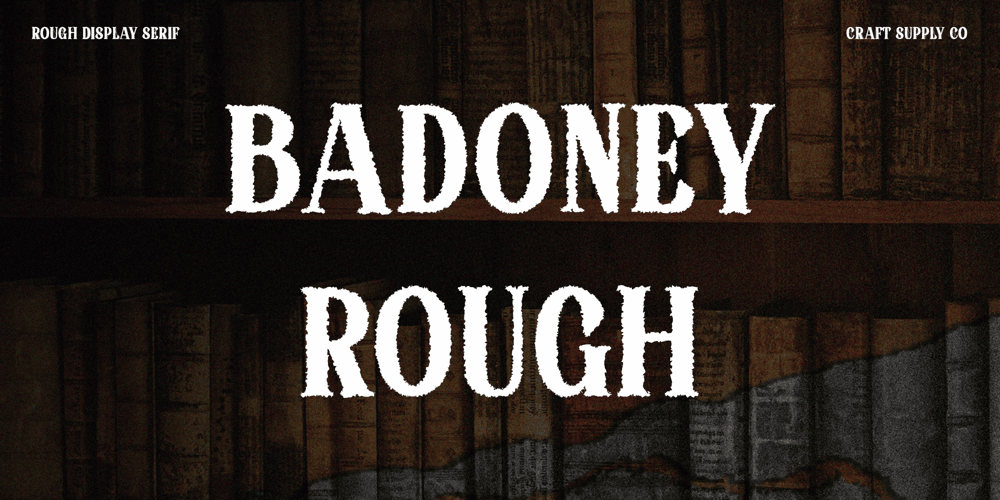
Badoney Rough Font Family was designed by Trio Nazzar Saputra, Wahyu Hadi Yuana and published by Craft Supply Co. Badoney Rough contains 2 styles and family package options. Badoney Rough: Vintage Charm in Classic Condensed Serif DesignBadoney Rough boasts a classic condensed serif design that exudes timeless elegance and sophistication. Its sleek and compact letterforms make it ideal for various design applications.Low Contrast AppealWith its low-contrast appearance, This font strikes the perfect balance between readability and visual impact. The subtle variation in stroke width adds to its vintage charm and appeal.Rough EffectThe font is enhanced with a rough effect, lending it a weathered and aged look reminiscent of vintage typography. This adds character and authenticity to any project it graces.Perfect for Vintage VibesThis font is tailor-made for evoking vintage vibes in your designs. Whether used for branding, packaging, or editorial purposes, it brings a nostalgic touch to any layout or composition.Timeless Elegance with a Vintage TwistThis font combines classic condensed serif design with a rough effect to create a font that is both sophisticated and vintage-inspired. Its low-contrast appearance adds to its allure, making it an excellent choice for designers seeking to infuse their projects with retro charm.